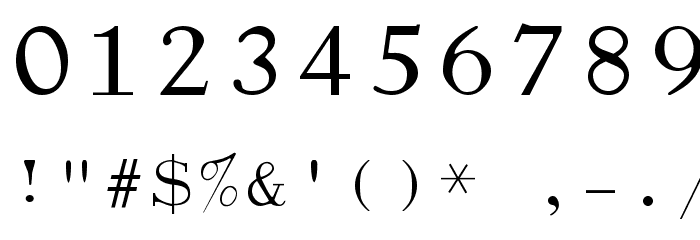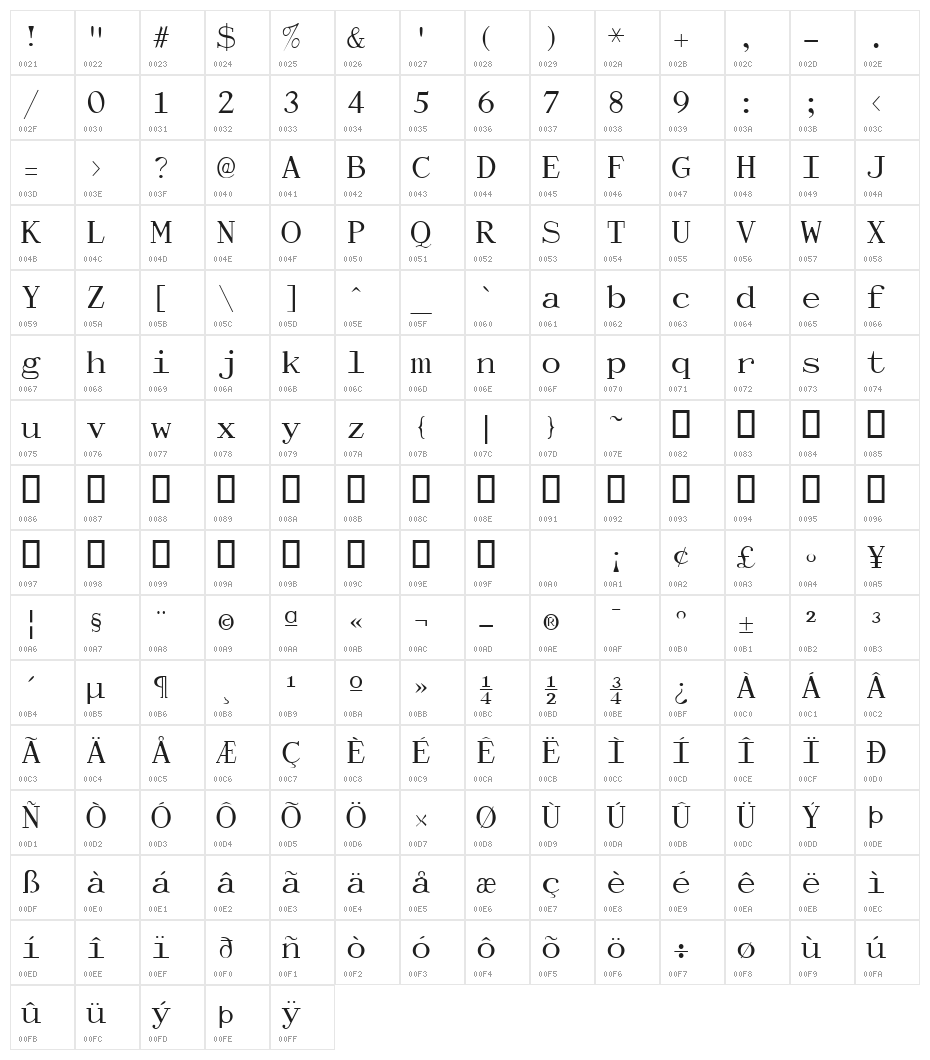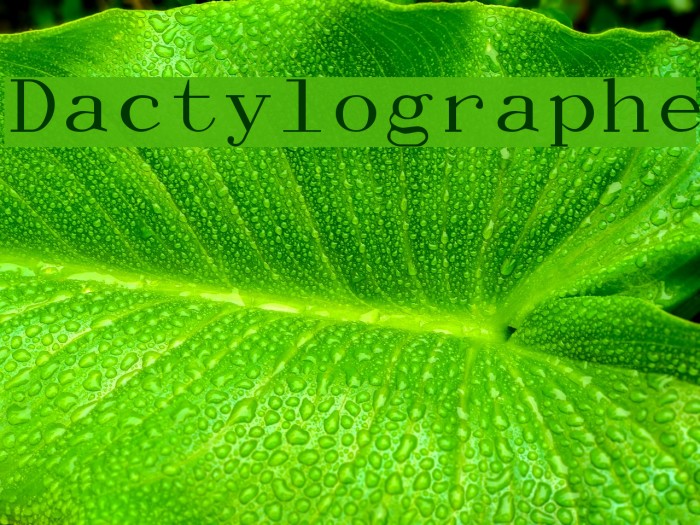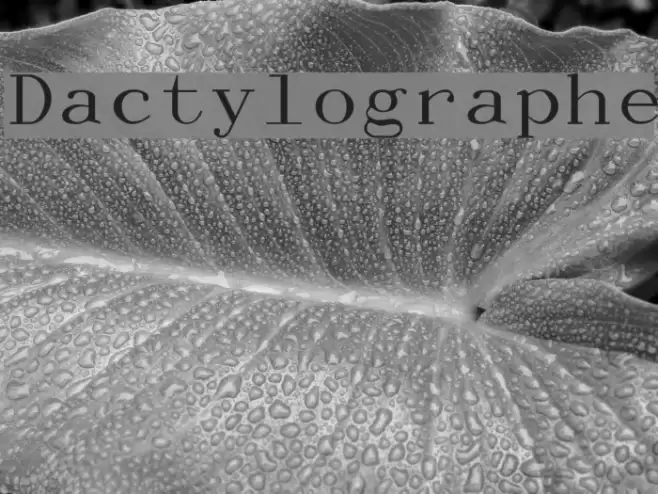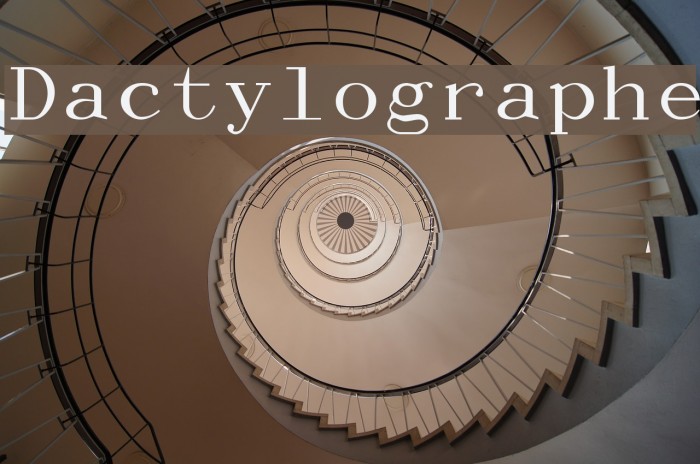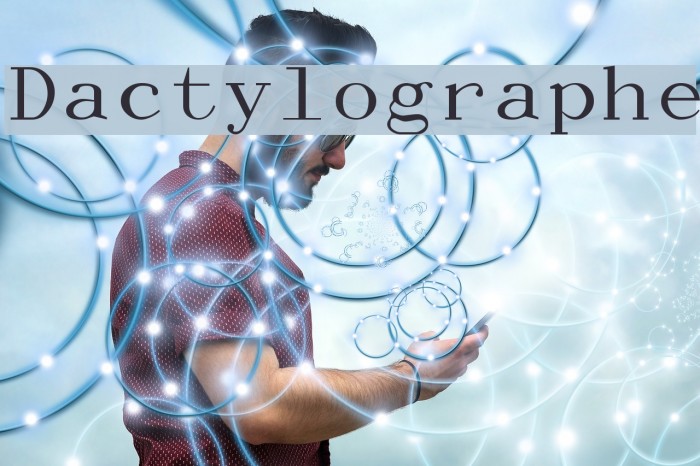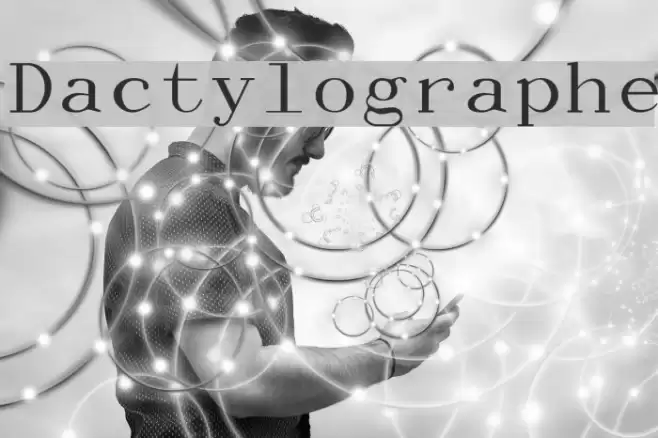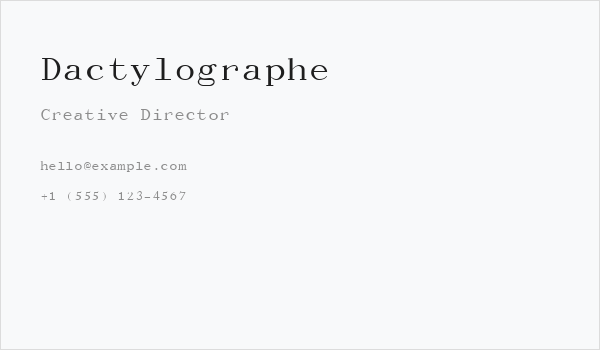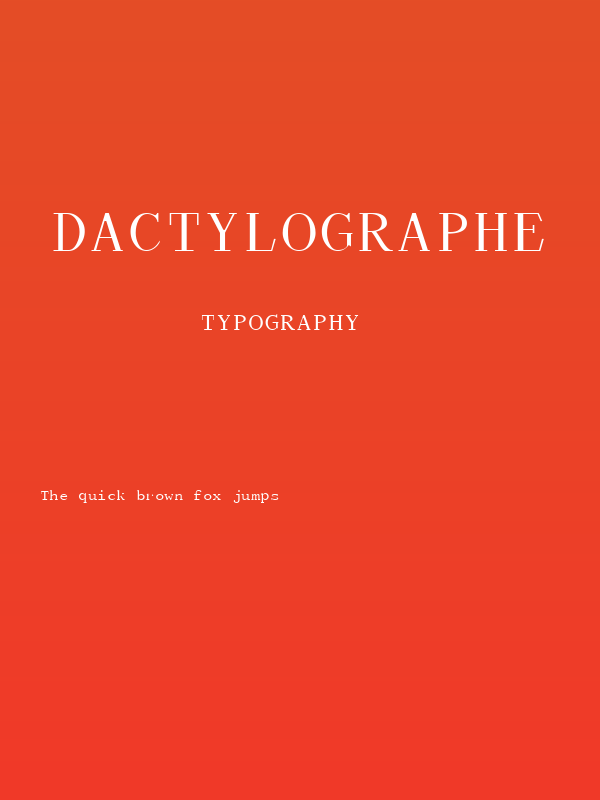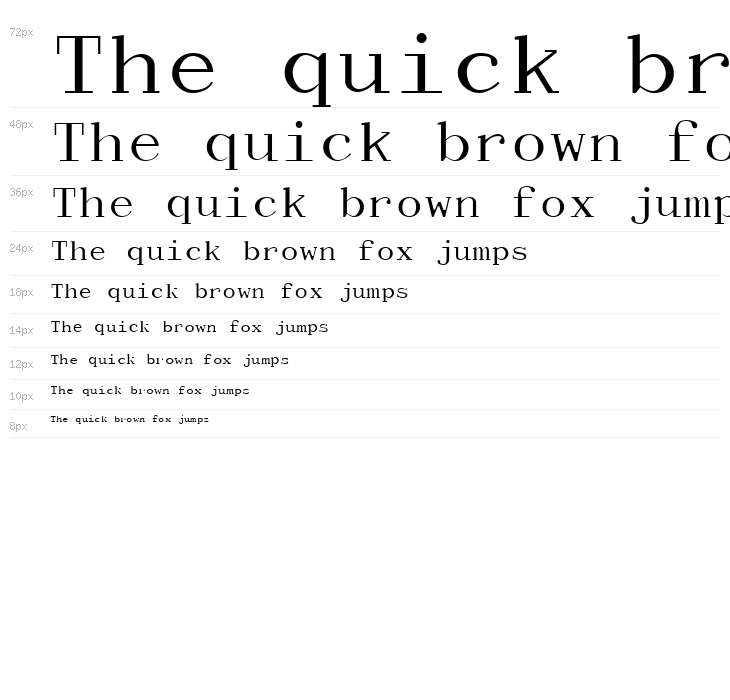
Dactylographe Font
Dactylographe Description
This font exhibits a classic serif style with elegant and refined strokes. The uppercase letters are tall and stately, featuring pronounced serifs that add a touch of sophistication. The lowercase letters maintain a consistent style, with smooth curves and a balanced appearance. The numerals are clear and legible, matching the overall aesthetic of the font. Special characters are well-integrated, providing versatility for various uses. The font's design is reminiscent of traditional typefaces, yet it maintains a modern touch that makes it suitable for contemporary applications.
| Proposed Projects | Ideal for editorial design, book covers, formal invitations, and branding projects that require a touch of elegance. |